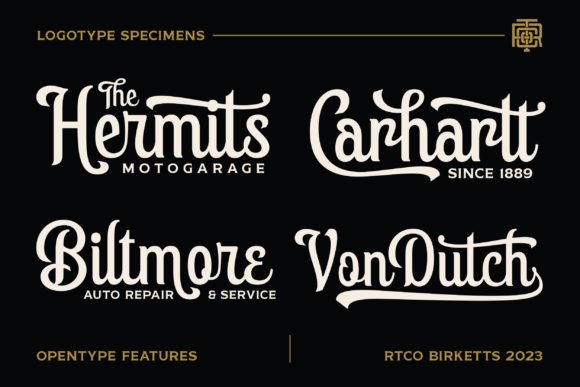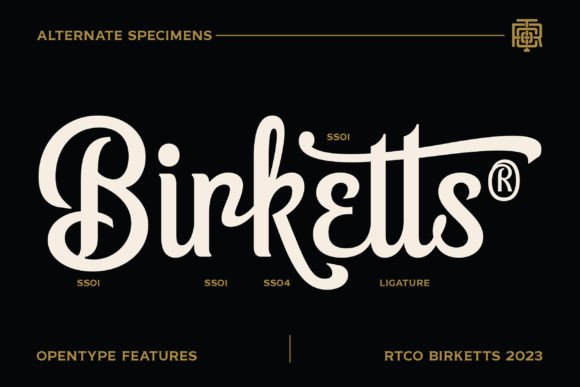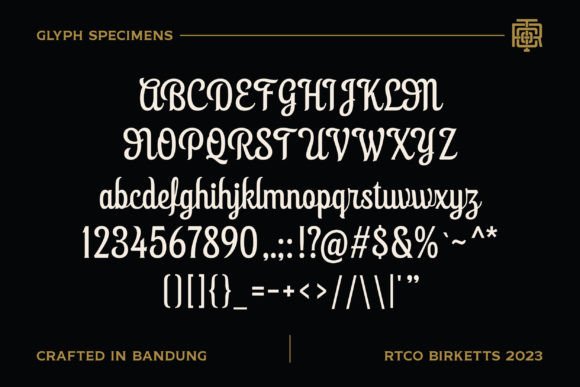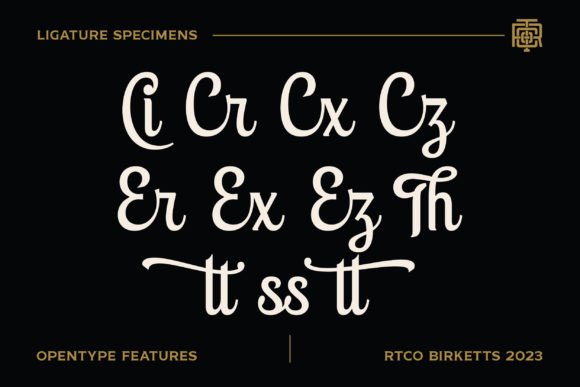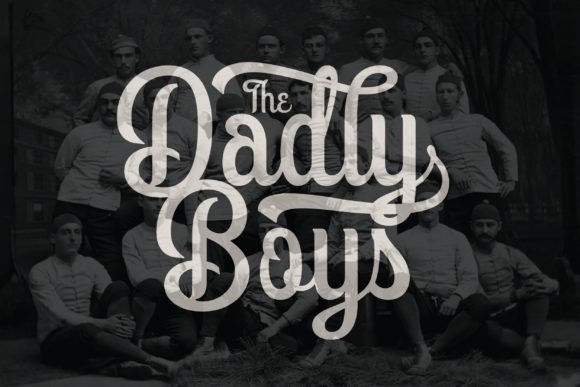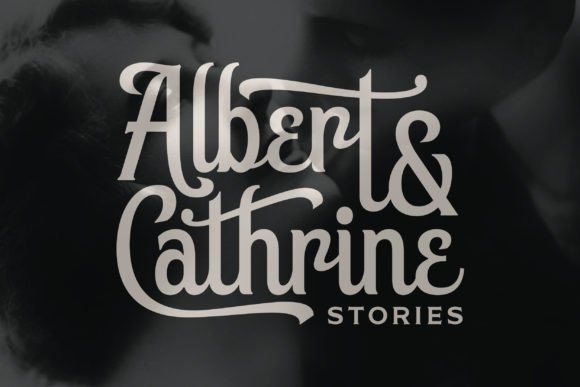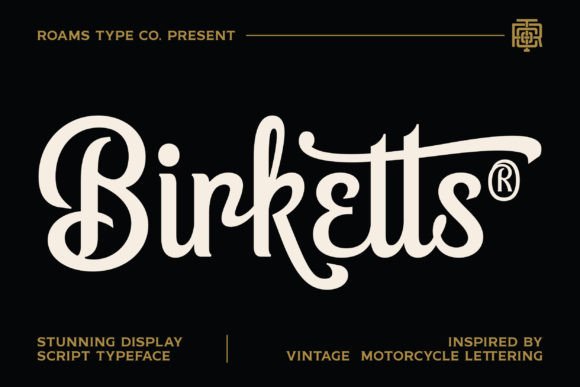
Birketts Font: A Timeless Vintage Script for Elegant Designs
In the world of typography, few fonts manage to evoke a sense of nostalgia and elegance as effectively as Birketts. This vintage-style script font has been gaining popularity among designers and crafters for its classic charm and sophisticated appeal. With its cursive strokes and elaborate flourishes, Birketts is the perfect choice for anyone looking to add a touch of timeless elegance to their designs.
The Characteristics of Birketts Font
Birketts is a script font that draws inspiration from traditional calligraphy. Its cursive strokes are fluid and dynamic, with varying degrees of thickness that give it a hand-written feel. The font features elaborate flourishes, which add to its classic charm and make it perfect for use in formal designs. The overall effect is one of understated sophistication, making Birketts an ideal choice for designers looking to create elegant and refined designs.
Uses for Birketts Font
Birketts is a versatile font that can be used in a variety of design projects. Some of the most popular uses for Birketts include:
- Invitations: Whether you’re planning a wedding, a baby shower, or another special occasion, Birketts is the perfect choice for creating beautiful and elegant invitations.
- Labels: Add a touch of sophistication to your product labels or packaging with Birketts. The font’s classic charm and elegant feel make it perfect for luxury brands and high-end products.
- Branding Projects: Birketts can be used to create a cohesive brand identity that exudes elegance and refinement. Use it for logos, business cards, and other marketing materials to create a lasting impression.
Why Choose Birketts Font?
So why choose Birketts over other script fonts? Here are just a few reasons why Birketts stands out:
- Timeless Appeal: Birketts has a timeless quality that makes it perfect for designs that need to stand the test of time. Unlike trendy fonts that quickly go out of style, Birketts remains elegant and sophisticated year after year.
- Versatility: Birketts can be used in a variety of design projects, from formal invitations to luxury branding. Its versatility makes it a valuable addition to any designer’s font library.
- Elegance: Birketts is the epitome of elegance, with its cursive strokes and elaborate flourishes giving it a refined and sophisticated feel. Use it to create designs that exude luxury and refinement.
Tips for Using Birketts Font
To get the most out of Birketts, here are a few tips to keep in mind:
- Use it sparingly: While Birketts is a beautiful font, it can be overwhelming if used excessively. Use it sparingly to create a focal point in your design.
- Pair it with a sans-serif font: For body text, pair Birketts with a clean sans-serif font to create a striking contrast.
- Experiment with flourishes: Birketts features elaborate flourishes that can add a touch of elegance to your design. Experiment with different flourishes to find the one that works best for your project.
Birketts is a vintage-style script font that offers a unique blend of elegance and sophistication. Its timeless appeal, versatility, and classic charm make it perfect for designers and crafters looking to create refined and luxurious designs. Whether you’re working on invitations, labels, or branding projects, Birketts is sure to add a touch of vintage charm to your designs. So why not give it a try and transport your audience to a bygone era of elegance and refinement?